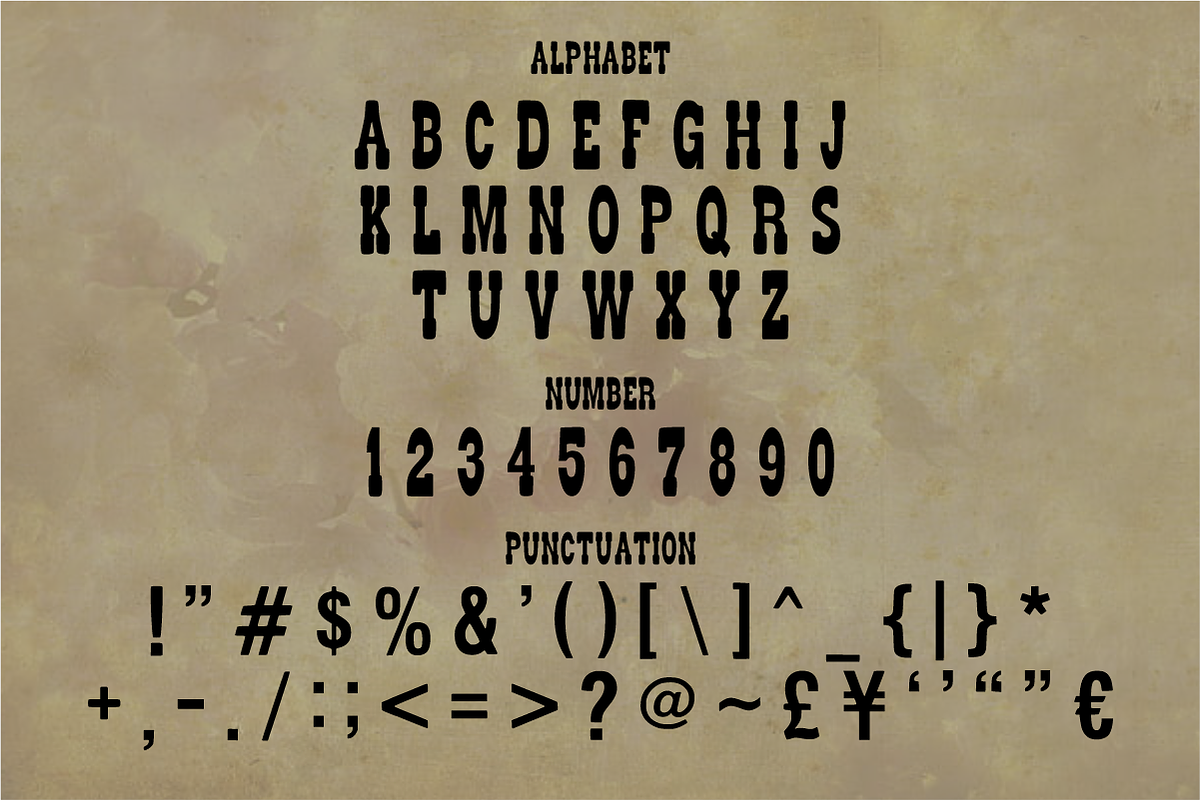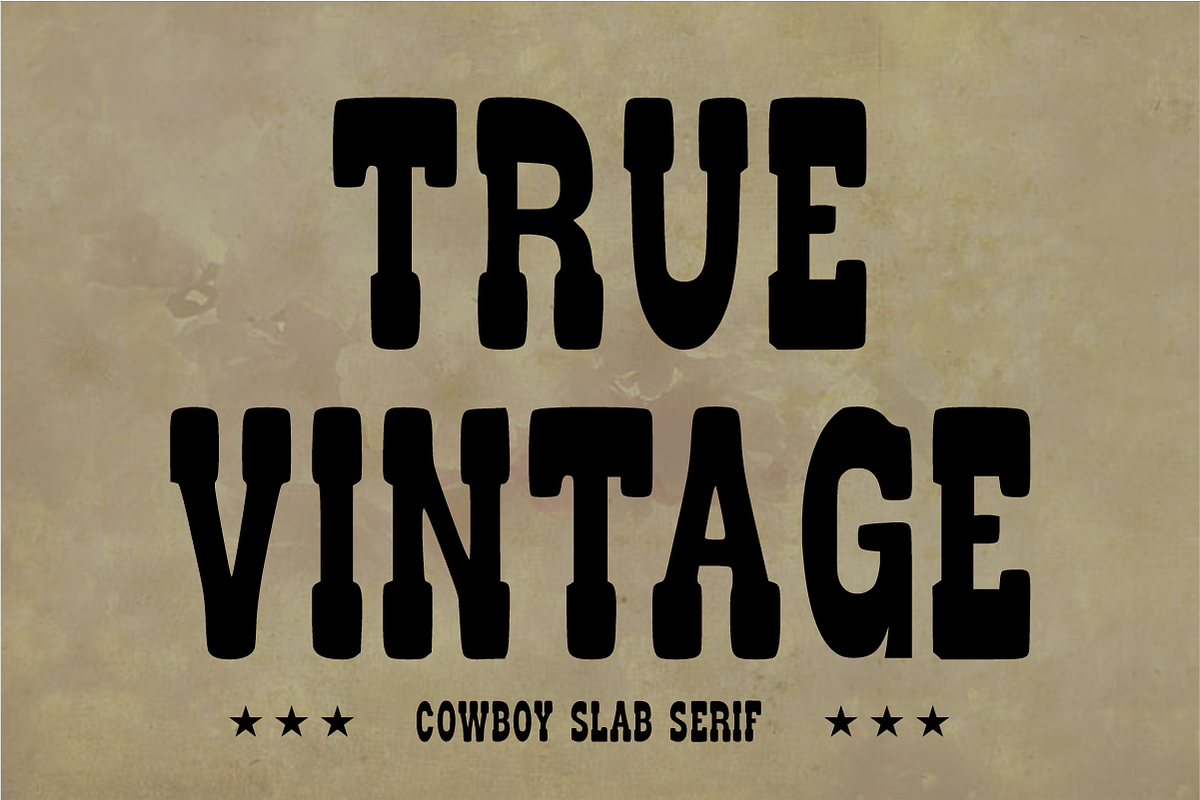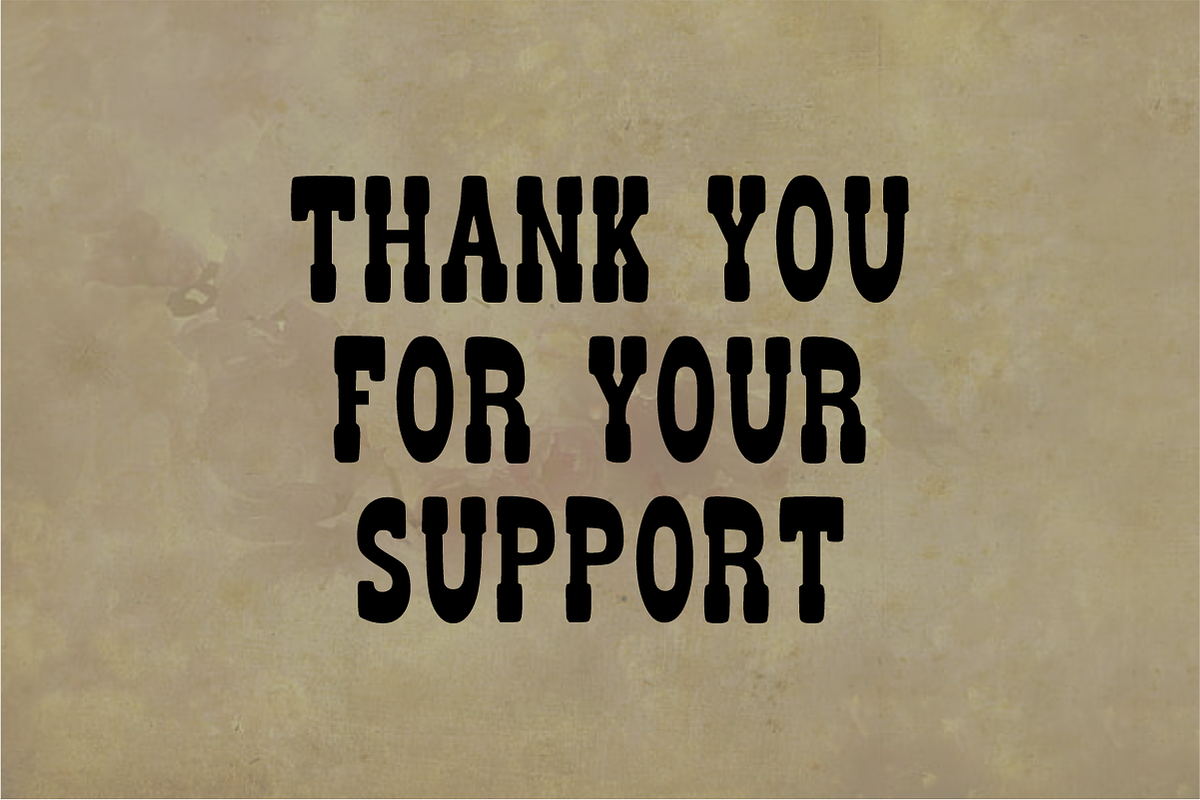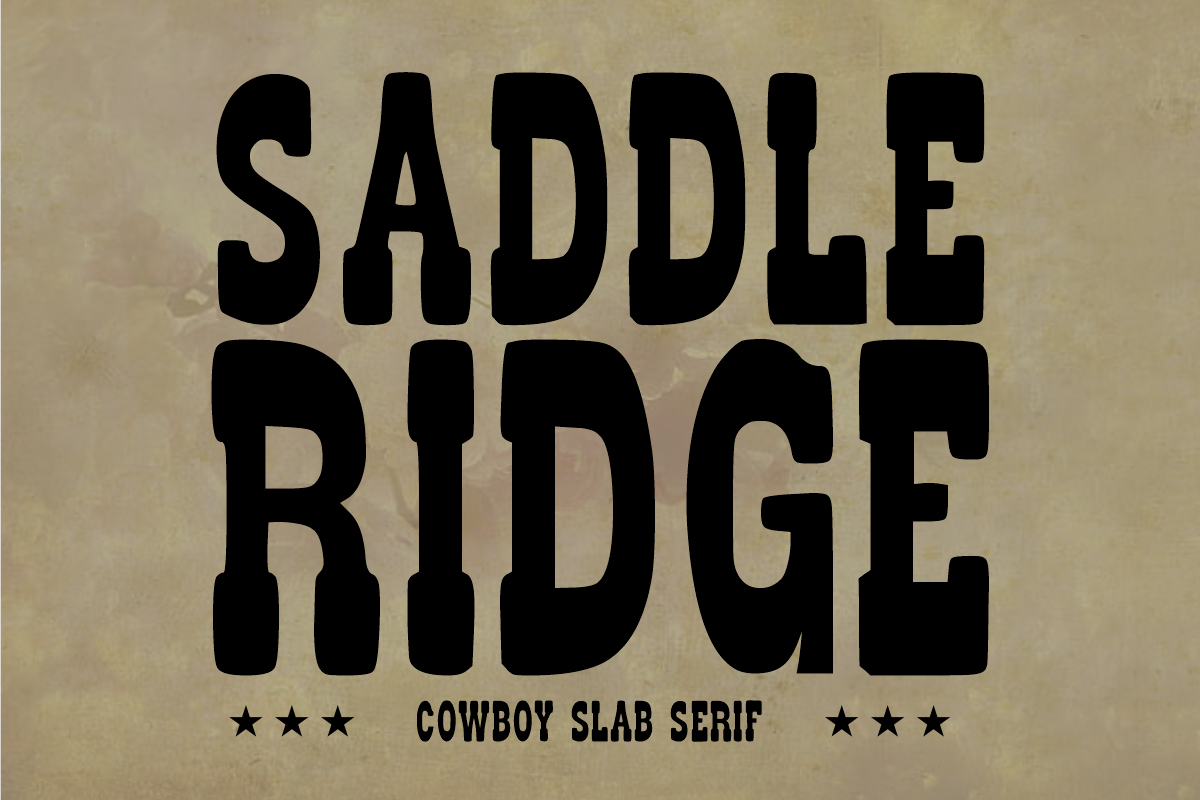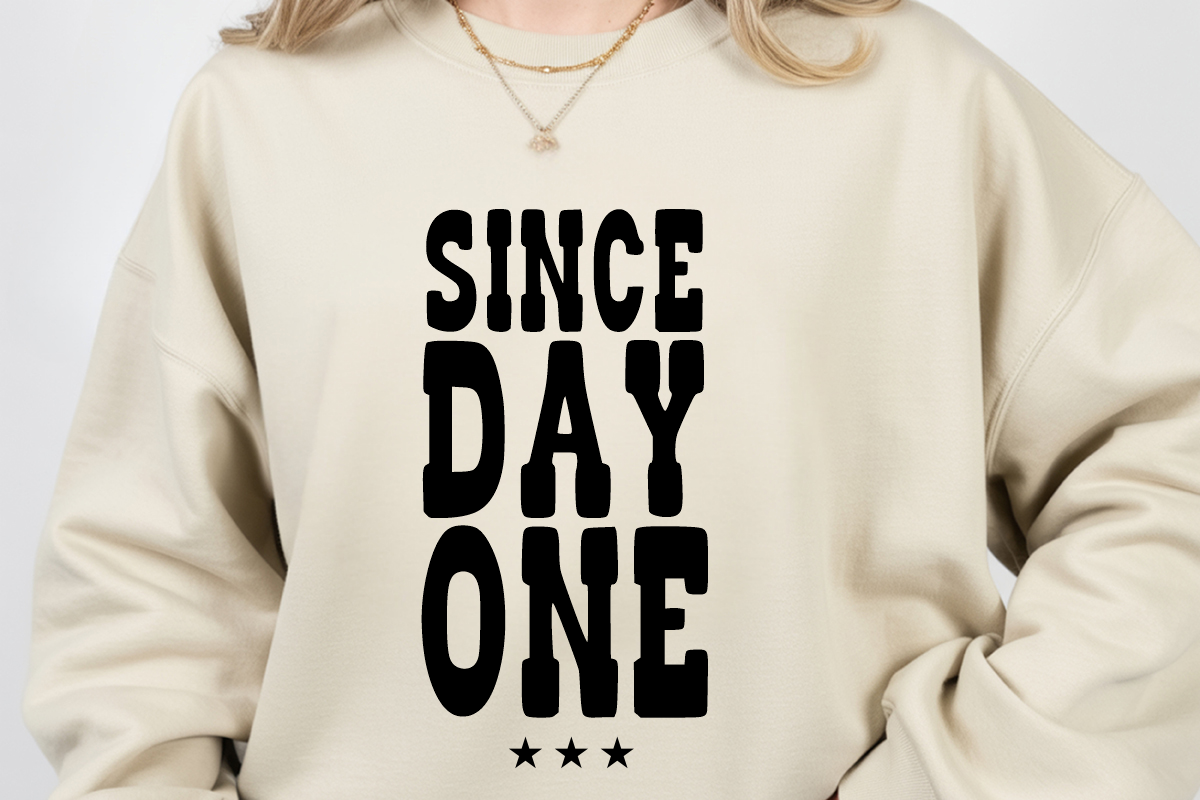
Saddle Ridge - Bold Western Font
🤠 Howdy Partners! Meet Saddle Ridge - The Ultimate Bold Western Font! 🌵
Ready to round up some serious attention for your next design? Saddle Ridge is a premium display font featuring heavy block letters, strong slab accents, and an authentic wild-west heritage soul. It perfectly blends classic cowboy nostalgia and rugged ranch vibes with a clean, modern streetwear edge!
It’s bold, timeless, and meticulously crafted for creators who want their headlines, branding, and apparel designs to stand out with genuine frontier charm.
✨ What’s Packed in the Frontier Kit:
_ 🔠 _\Bold Uppercase Letters (A-Z)\\* – Strong, powerful block characters with a rustic western spirit.
_ 🔢 _\Matching Numbers (0-9)\\* – Perfect for rodeo years, vintage dates, or pricing tags.
_ 🔣 _\Simple Symbols & Punctuation\\* – Essential basics to complete your custom layouts easily.
🎯 Perfect For Your Next Best-Selling Project:
\* 👕 Rugged T-Shirts, Trucker Hats, Cozy Hoodies & Country-Style Streetwear Apparel
\* 🤠 Rodeo Posters, Saloon Branding, Ranch Logos, Badges & Wild West Emblems
\* 🎨 Clean SVG Cut Files for Cricut & Silhouette (Super bold lines for effortless weeding!)
\* 🥤 Adventurous Stickers, Craft Brewery Labels, Packaging, and Punchy Social Media Headers